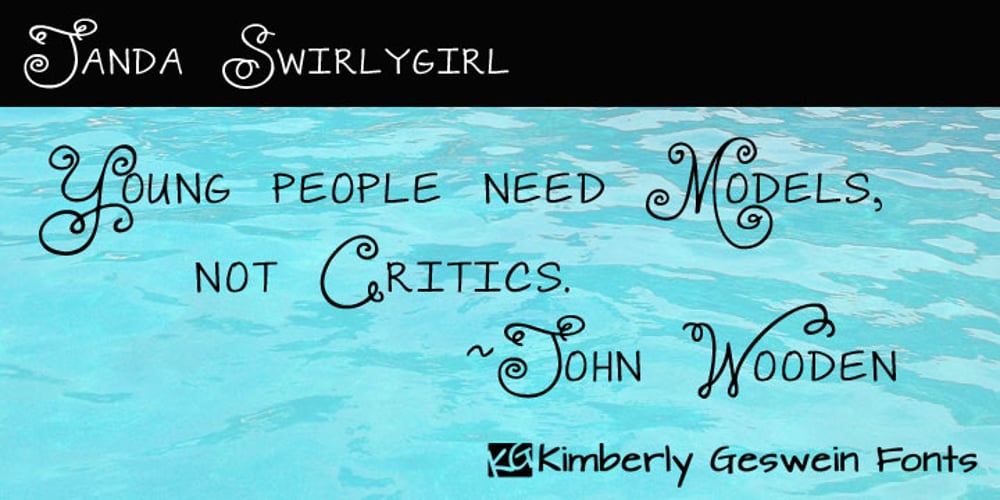
Janda Swirlygirl
Janda Swirlygirl font
Janda Swirlygirl Font Family was designed by Kimberly Geswein and published by Kimberly Geswein. Janda Swirlygirl contains 1 styles and family package options. The swooshy swirls of the uppercase paired with the simple lowercase creates a very useful title font. Romantic and girly but still perfectly legible.